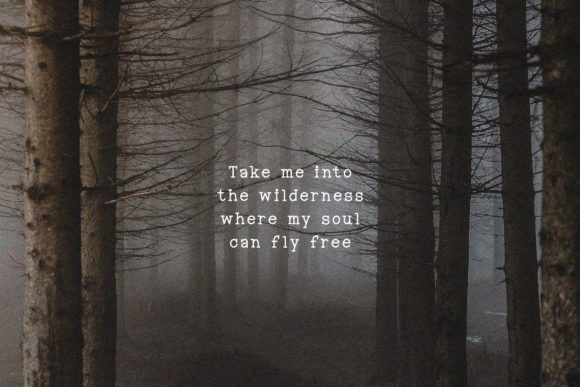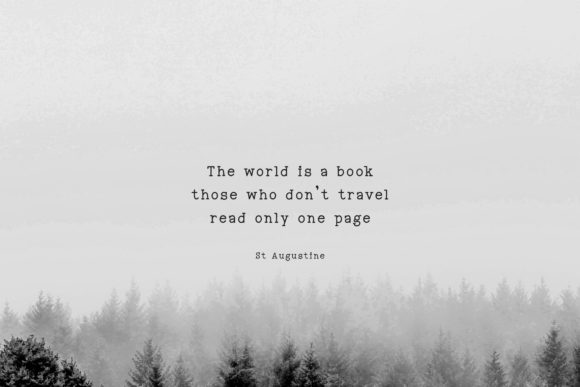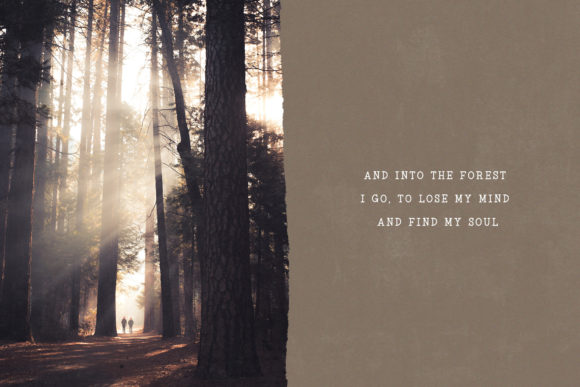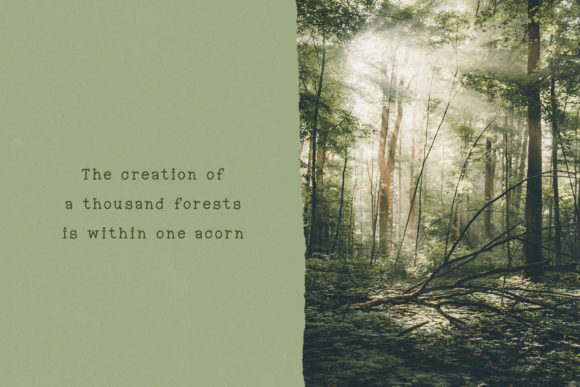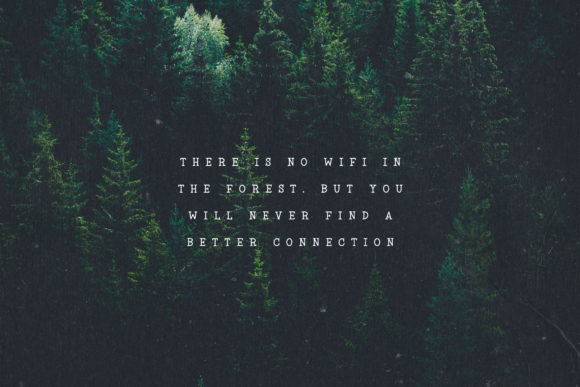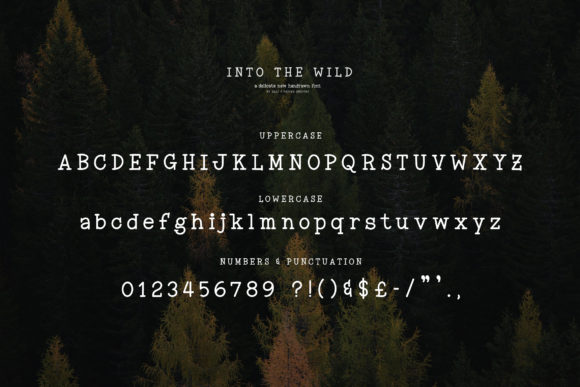
Into the Wild
Into the Wild: A Cool and Vintage-Styled Slab Serif Font
Into the Wild is a captivating slab serif font that combines a cool, vintage aesthetic with modern versatility. This font is designed to be an incredible asset to your font library, as it has the potential to elevate any creation, regardless of the topic.
Key Features of Into the Wild
• Cool Design: Features a trendy and appealing look that resonates with vintage styles.
• Vintage Aesthetic: Incorporates classic design elements that evoke nostalgia and charm.
• Slab Serif Structure: Maintains the characteristic thick, rectangular serifs typical of slab serif fonts.
• Versatile Application: Easily matched to a wide range of projects, from print to digital media.
• Stand-Out Quality: Designed to enhance your creative ideas and make them visually striking.
Ideal Uses for Into the Wild
Into the Wild’s unique characteristics make it particularly well-suited for:
• Headlines and titles that need to grab attention.
• Branding and logo design for a memorable identity.
• Posters and advertisements that require bold typography.
• Website headers and digital content aimed at creating an impact.
• Packaging design that stands out on the shelf.
When incorporating Into the Wild into your designs, consider the following tips:
• Use for both large headlines and smaller text blocks to showcase its versatility.
• Experiment with different sizes to highlight the font’s vintage-inspired details.
• Pair with complementary fonts to create contrast and visual interest.
• Take advantage of its distinctive nature in projects where you want to convey adventure or exploration.
Into the Wild is an excellent choice for designers looking to add a cool and vintage-styled slab serif font to their typographic toolkit. Its ability to enhance various design projects makes it stand out in the world of typography. Whether you’re working on branding, creating layouts for adventurous themes, or developing marketing materials, Into the Wild offers the perfect blend of vintage charm and modern appeal.
Add Into the Wild to your creative projects and explore how it can elevate your designs with its captivating style. From striking headlines to impactful branding elements, this font provides the tools to create memorable typography that resonates with audiences seeking a touch of nostalgia.